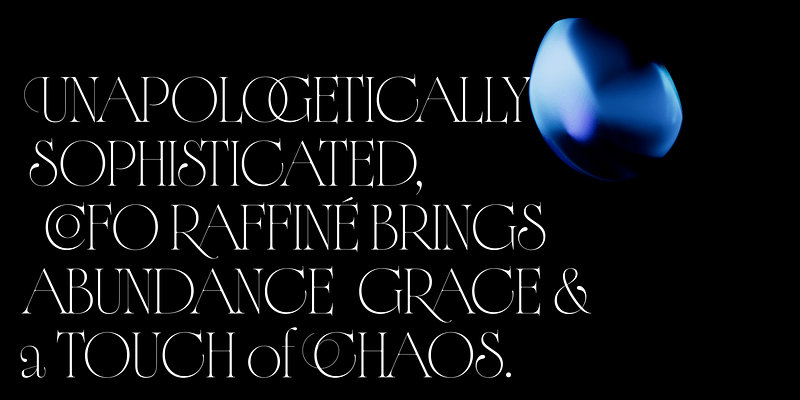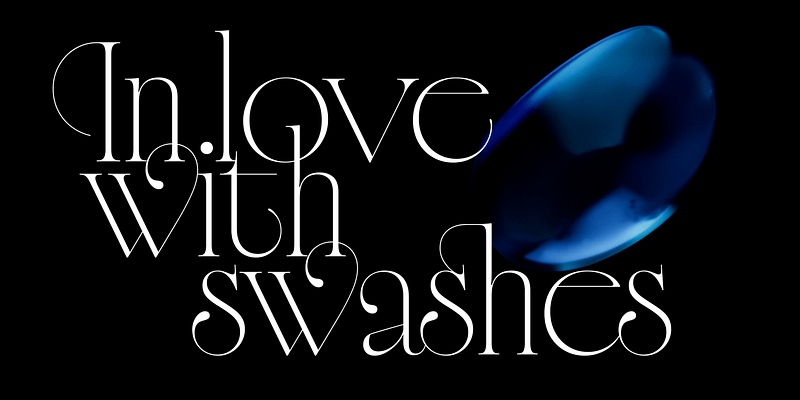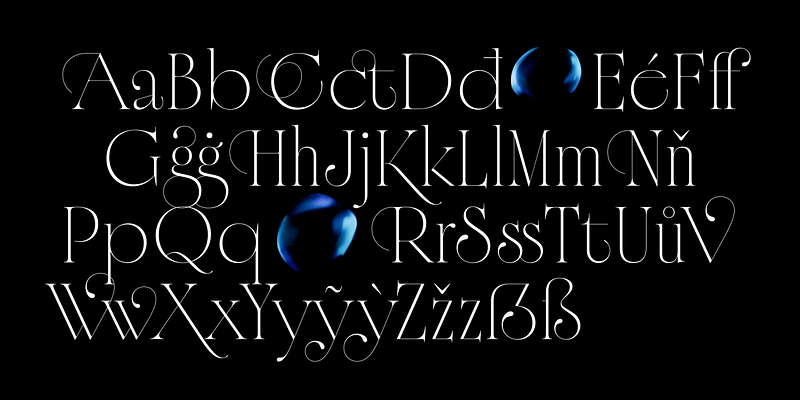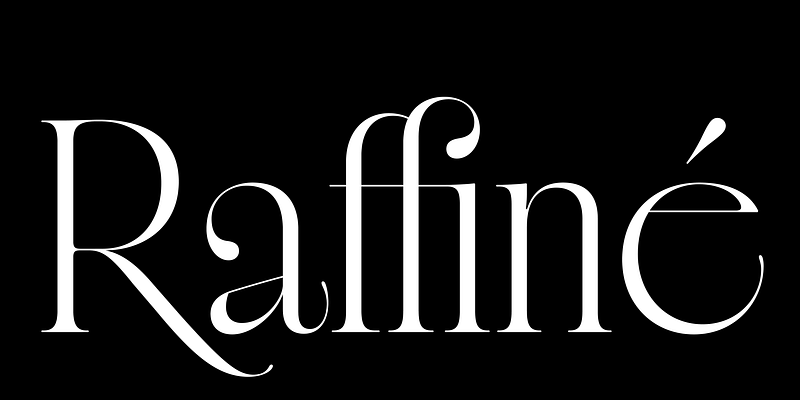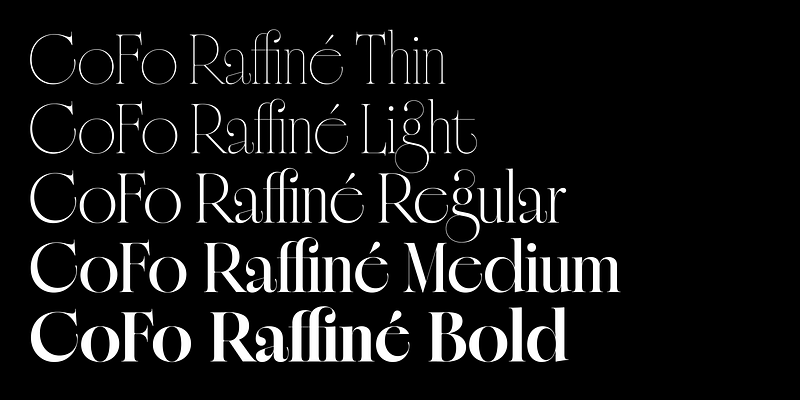
CoFo Raffiné is an eclectic typeface with a vivid character. Packed with personality on many levels, it is bursting with confidence, energy and style. An amplified variation in proportions makes typesetting any word, title or sentence unpredictable and exciting. The difference in proportions exists not only in the width of characters, but also in the exaggerated forms of individual letters. This deliberate asymmetry increases even further by a carefully balanced selection of swashes and ligatures.
Avoiding simplification at all costs, CoFo Raffiné is a rich and exciting design. It encapsulates the free spirit of a 1919 classic silent film (whose title lettering it was originally inspired by) a variety of opportunities to play with the design, with almost no limitations, just stick to larger font sizes, please!, but the elegant shapes and high contrast evoke a wide range of associations.